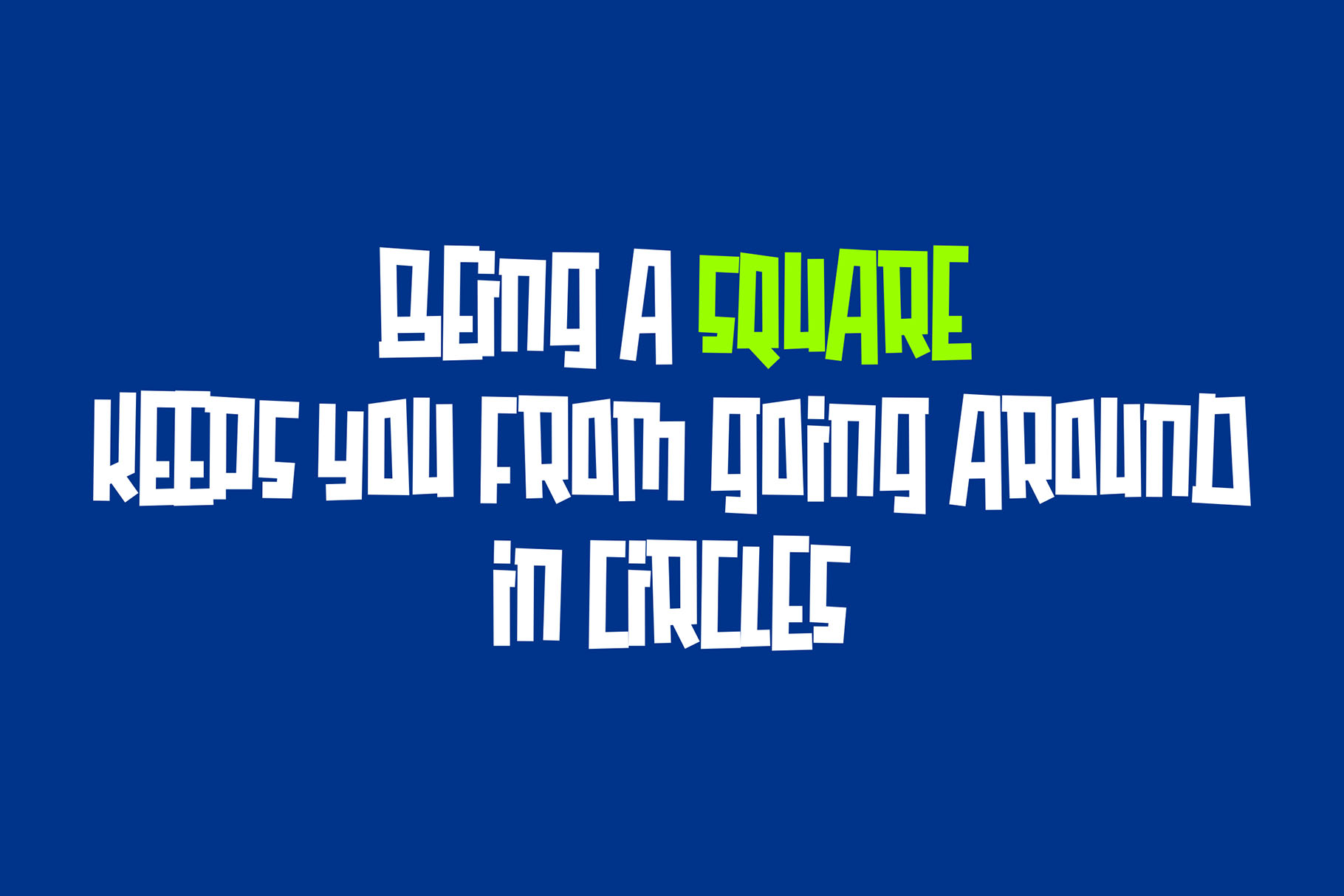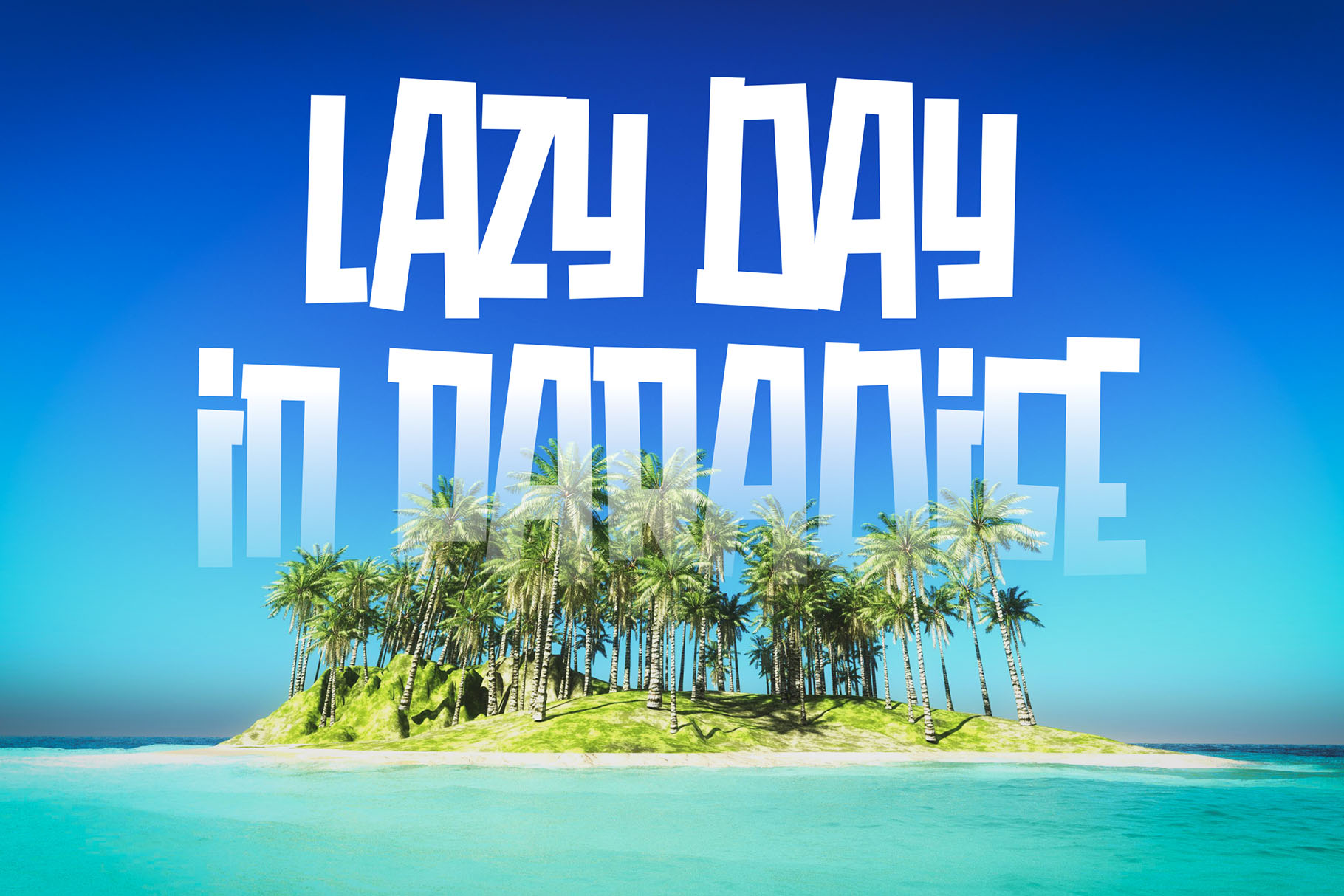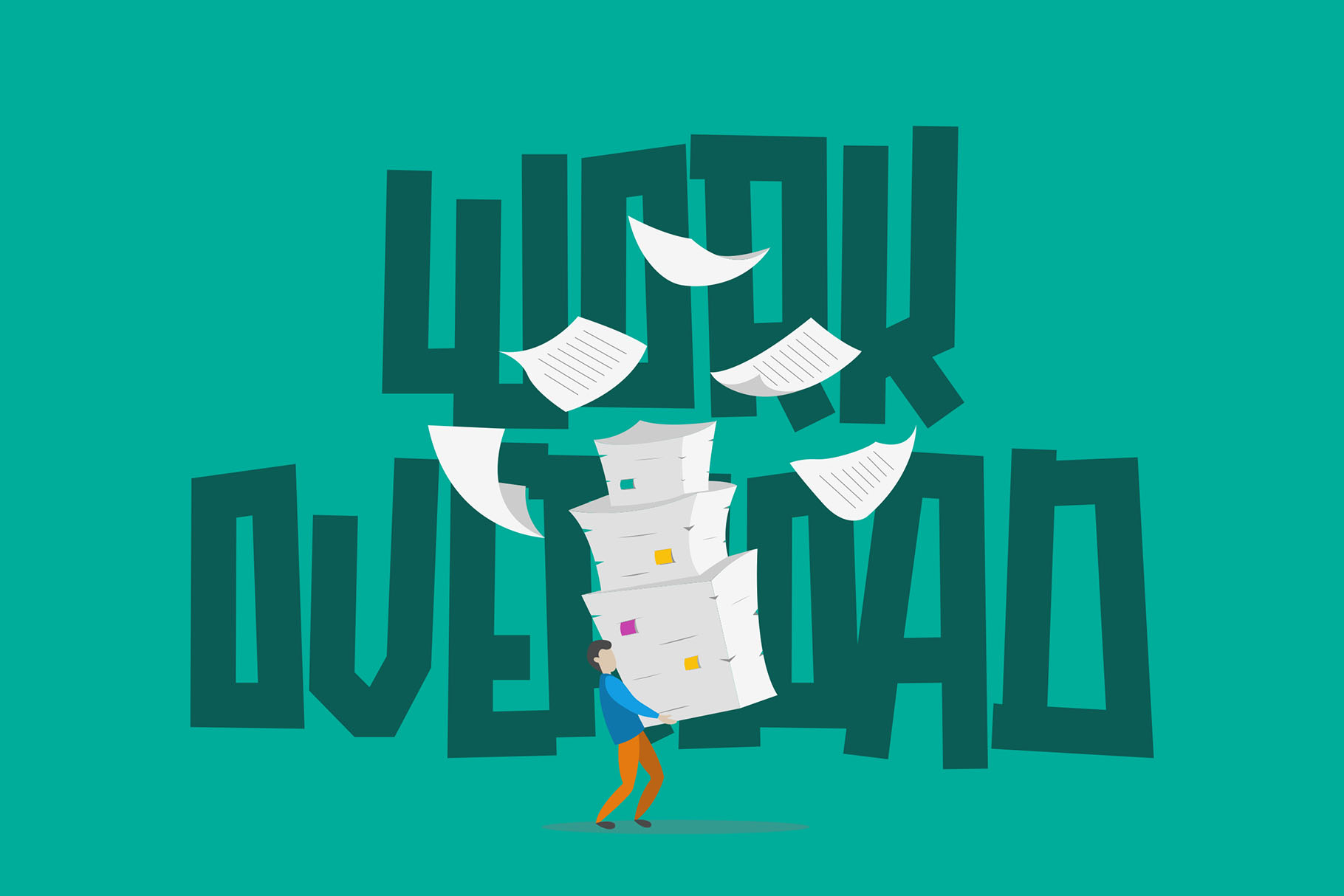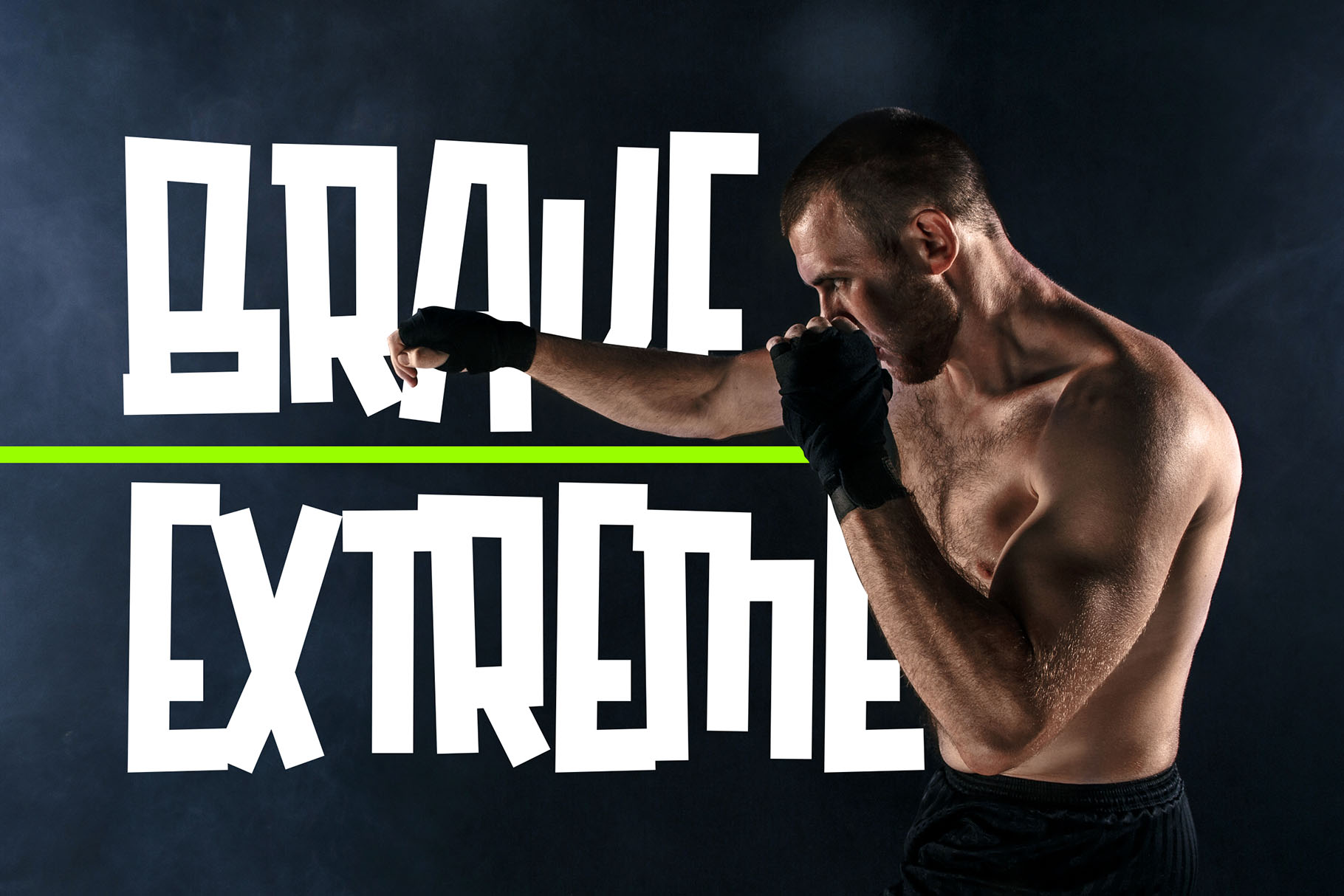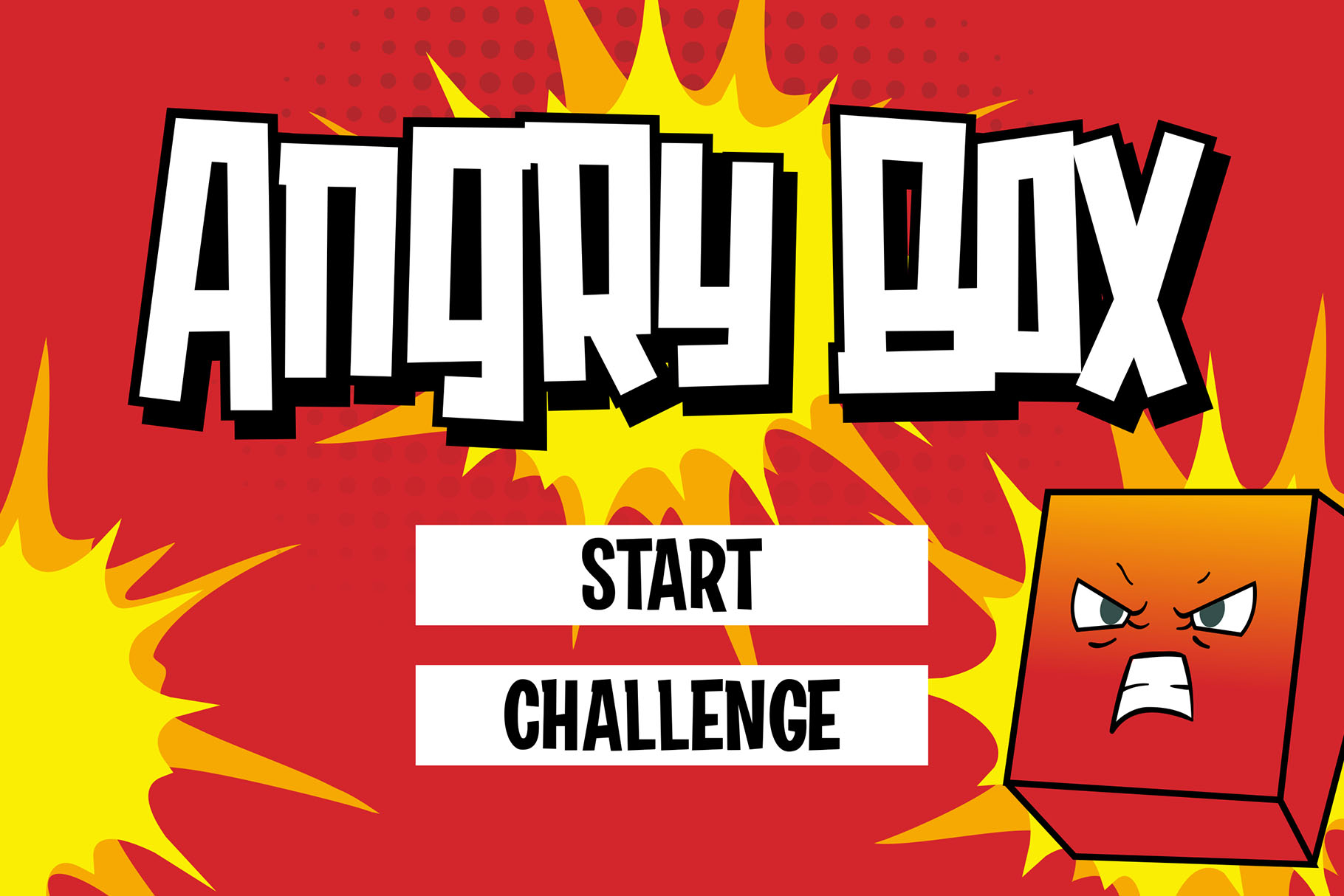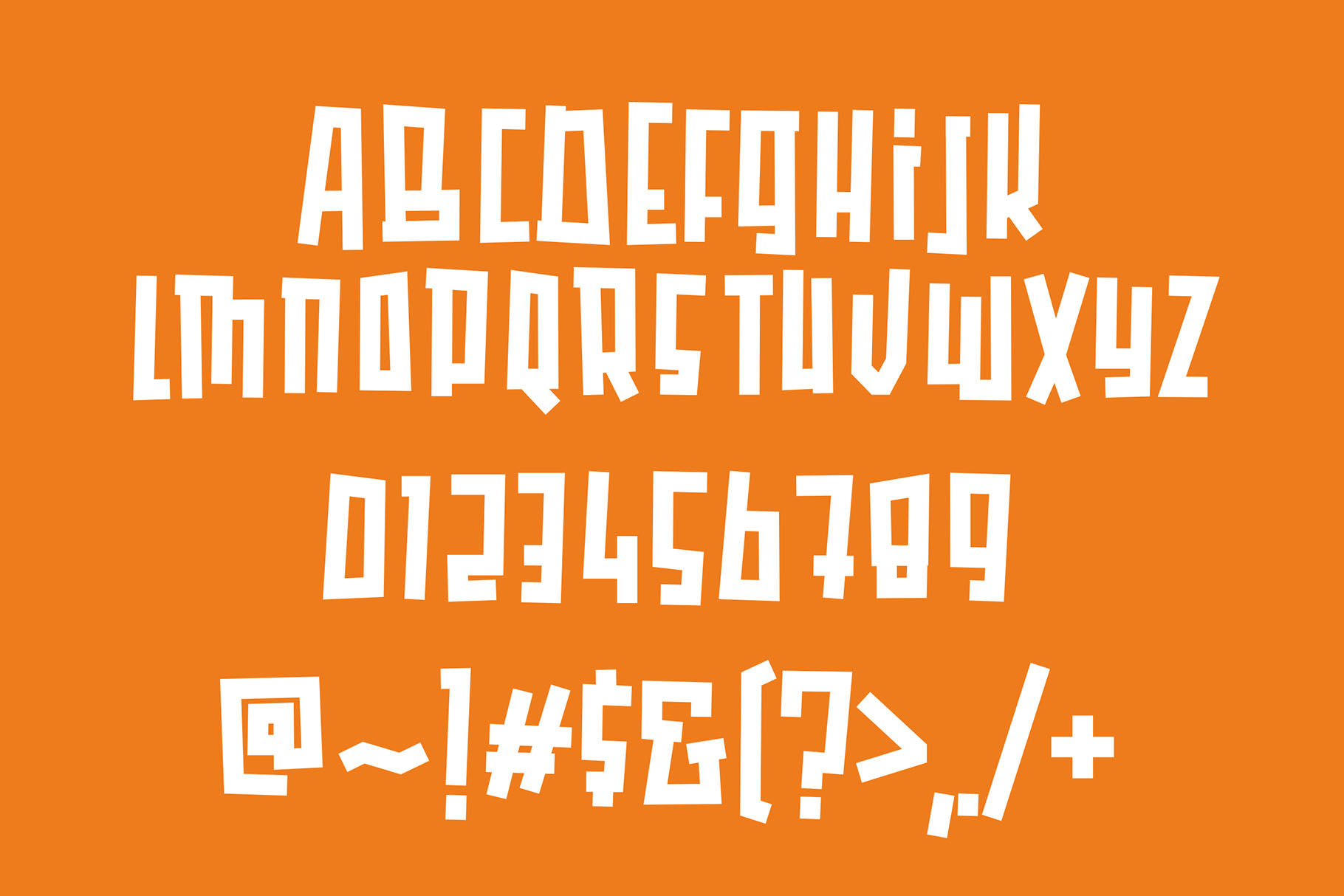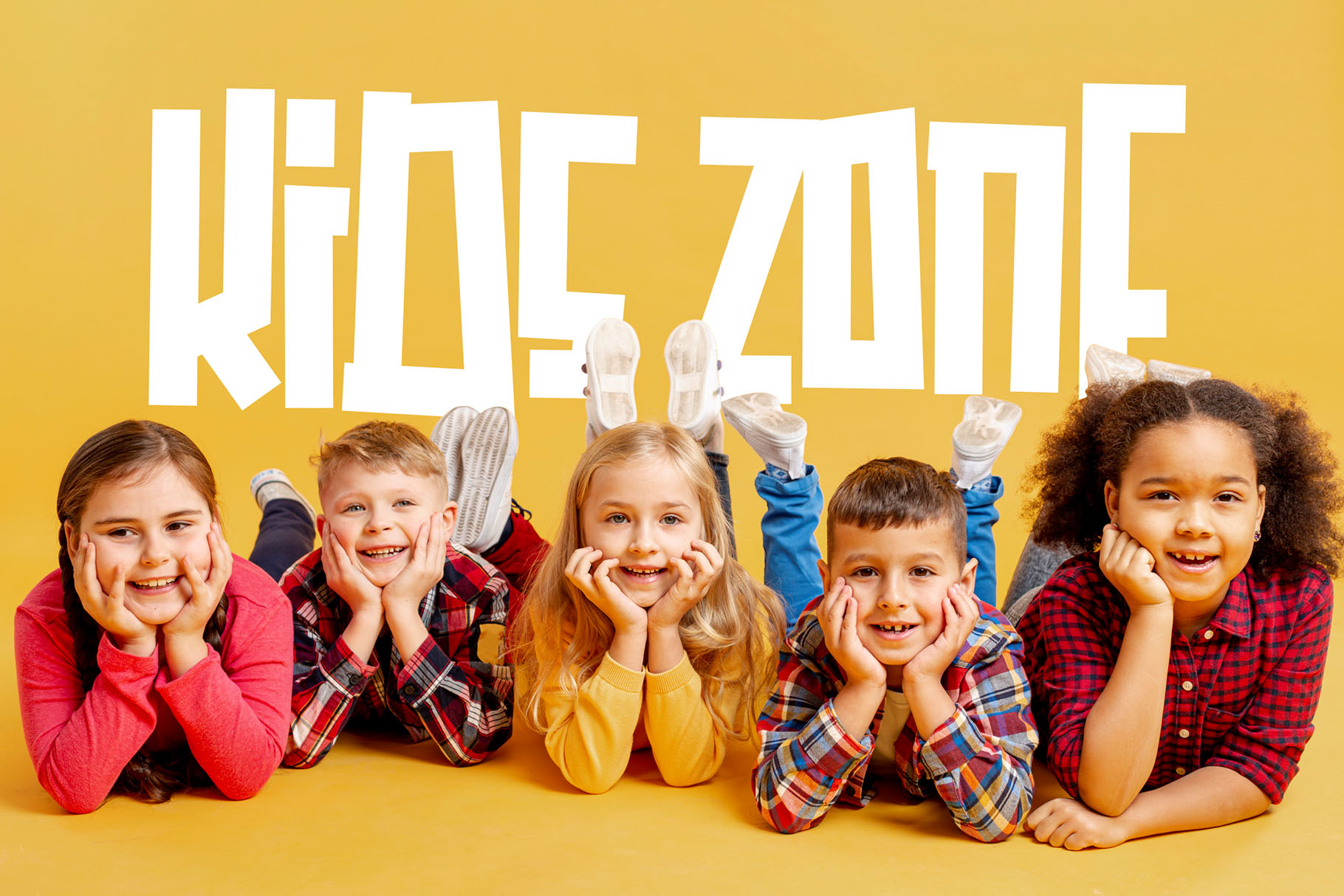
Qubiko Display Font for Bold Visual Statements
Qubiko Display Font is a unique all-caps display font designed with strong characteristics and a clear box-inspired line concept. Its structured visual personality makes it a practical choice for designers who need typography that feels bold, direct, and easy to notice.
Created for projects that need presence, Qubiko brings a confident display style to packaging, titles, headlines, posters, t-shirts, and other visual design work. It is not a quiet background font. It is made to become part of the main visual message.
For brand designers, content creators, apparel makers, packaging designers, and creative studios, Qubiko offers a strong typographic voice that can help a layout feel more distinctive. Its all-caps structure gives text a compact, firm, and memorable appearance, especially when used for short words, product names, campaign titles, or statement graphics.
Qubiko is inspired by the idea of clear lines on a box. That concept gives the font a structured, graphic, and modern display feel. The letters carry a strong visual rhythm, making the type suitable for designs that need sharp personality without looking overly complicated.
The font works especially well when the design direction calls for boldness, clarity, and standout impact. Its all-caps construction gives every word a strong silhouette, while the display character helps it feel more custom and expressive than a standard sans serif.
Use Qubiko when you want typography that feels solid, creative, and visually confident. It can support branding systems, packaging labels, poster layouts, merchandise graphics, digital banners, and title compositions where the words need to attract attention quickly.
Best Use Cases
Qubiko Display Font is suitable for a wide range of creative projects, especially designs that rely on strong titles and eye-catching text. It is a natural fit for packaging design, where product names need to stand out on shelves, mockups, labels, and promotional visuals.
For posters and headlines, Qubiko gives designers a strong typographic anchor. It can make event titles, campaign messages, and social media graphics feel more intentional and visually direct. The font also works well for t-shirt design, apparel graphics, and merchandise where bold uppercase lettering often performs best.
You can use Qubiko for product branding, display typography, short quotes, cover titles, logo-style wordmarks, label design, advertising layouts, creative banners, and editorial headers. Because it has a strong personality, it is best used where typography is meant to lead the design rather than simply support it.
Qubiko Display Font Key Features
• All-caps display font
• Box-inspired clear line character
• Includes numbers and punctuation marks
• Supports multilingual use
• Includes OpenType stylistic alternates
Designers love Qubiko because it gives layouts a strong focal point. In packaging, the font can help product names feel more visible and memorable. In posters and headlines, it creates a firm typographic structure that can hold attention. In t-shirt and apparel design, its all-caps style makes short phrases, names, and bold statements feel more graphic.
Qubiko is also practical for designers who need a font that works across multiple project types. Instead of being limited to one narrow niche, it can move from packaging to digital content, from posters to merchandise, from title design to branding accents.
Its box-inspired personality gives it a clear creative direction. That makes it especially useful when you want the typography to feel designed, not random. The font can help turn simple words into a visual element that feels intentional, strong, and ready for commercial design work.
Choose Qubiko when your design needs to stand out with purpose. Use it for product names, campaign titles, t-shirt graphics, poster typography, or any project where ordinary lettering does not feel strong enough.